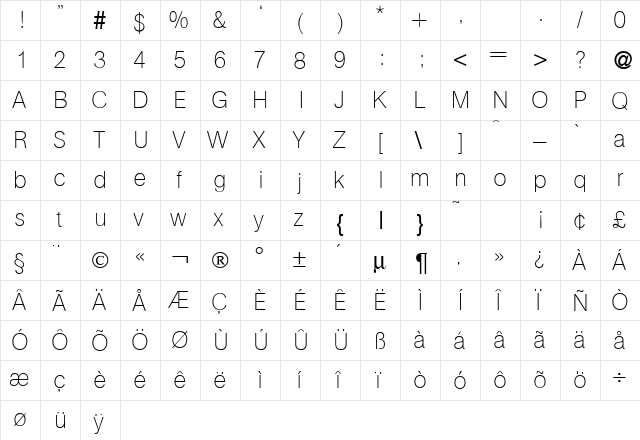
AgentLightDB Normal
Design Context for AgentLightDB Typeface
AgentLightDB offers clean, dependable letterforms without strong stylistic allegiance, making it a practical choice for designers who need flexibility. Its slender proportions lend an understated elegance to any composition.